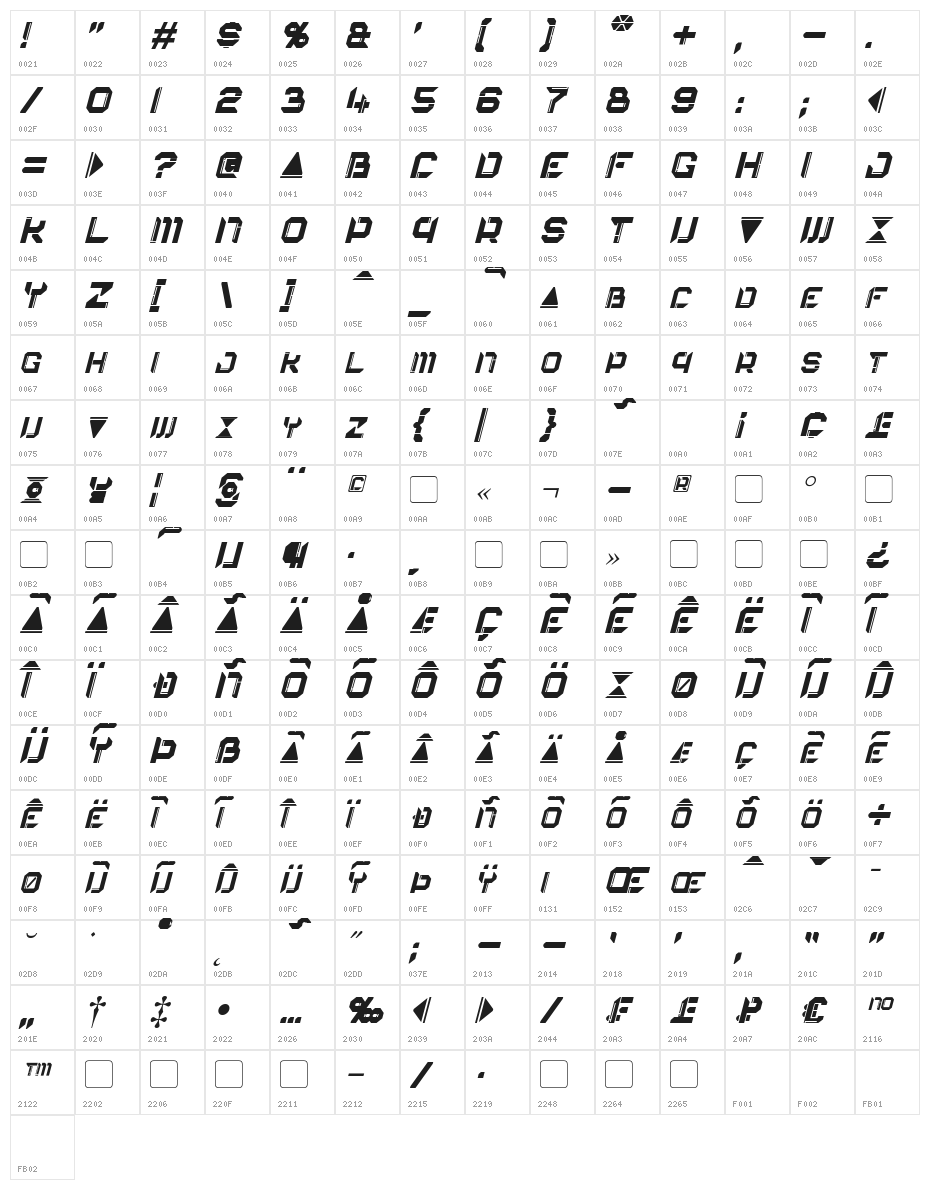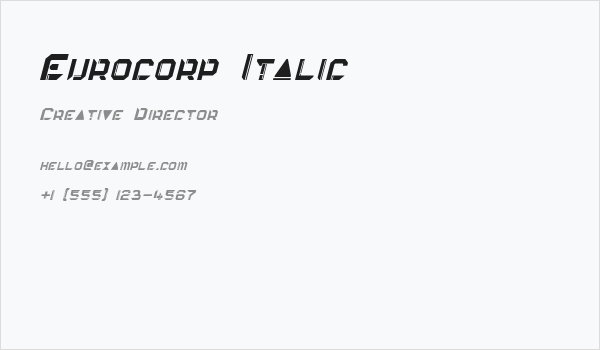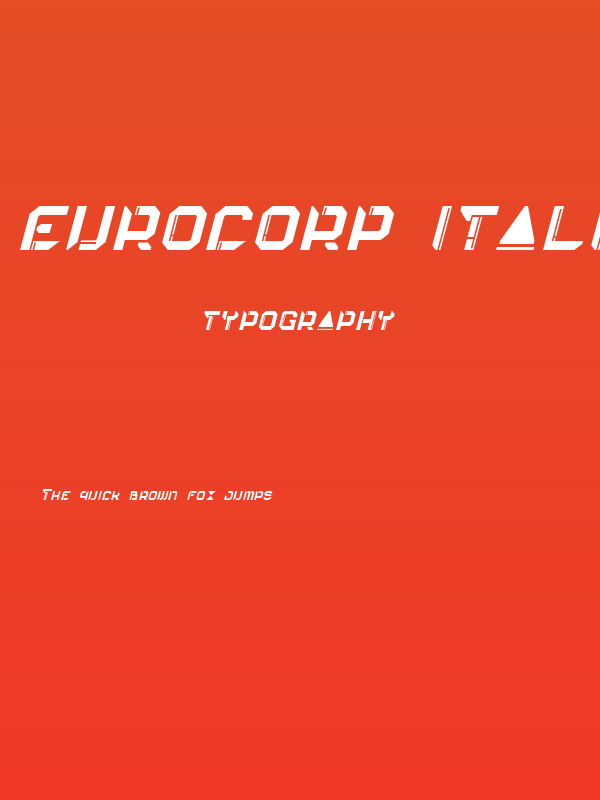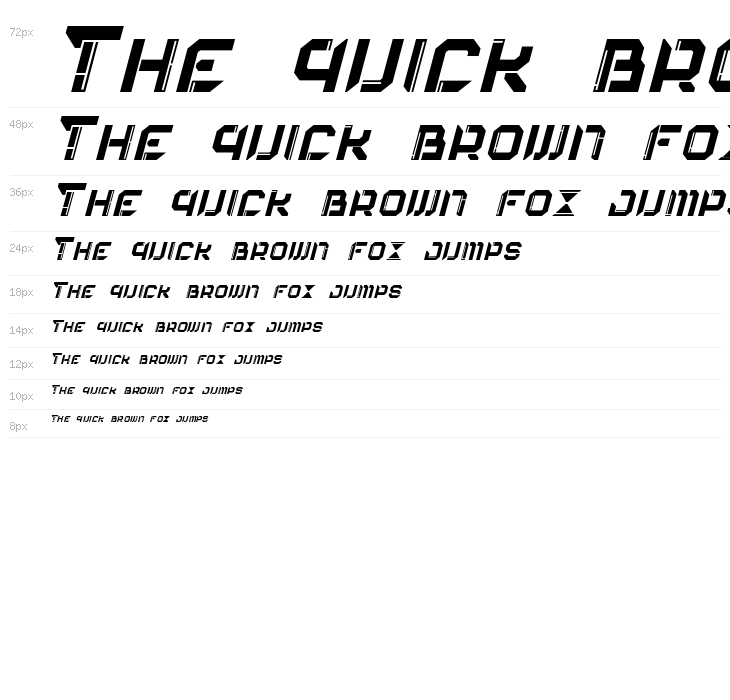
Eurocorp Italic Font
Eurocorp Italic Description
This font features a futuristic and angular design, characterized by sharp edges and geometric shapes. The letters are bold and italicized, giving a sense of motion and speed. The uppercase and lowercase letters maintain a consistent style, with unique cutouts and slashes that add to the dynamic appearance. The numbers and special characters follow the same design principles, ensuring uniformity across all glyphs. This font is ideal for projects that require a modern and edgy look, such as technology branding, sci-fi themed designs, or video game titles.
| Proposed Projects | Ideal for technology branding, sci-fi themed designs, or video game titles. |